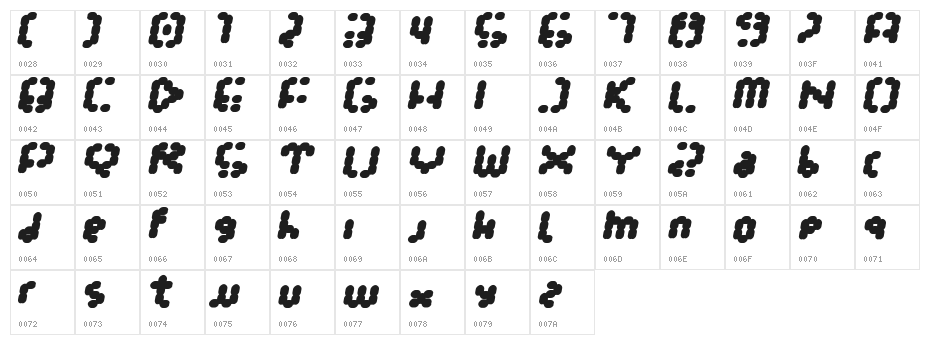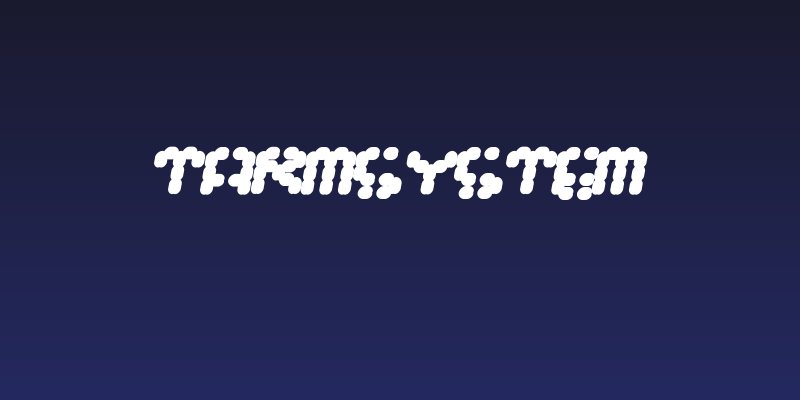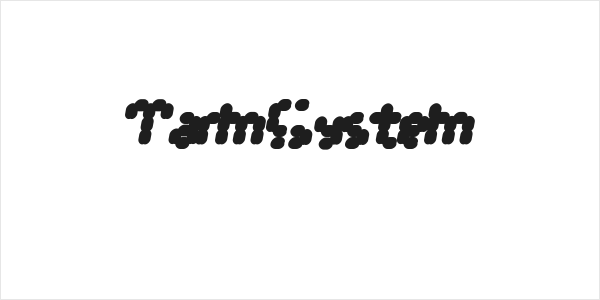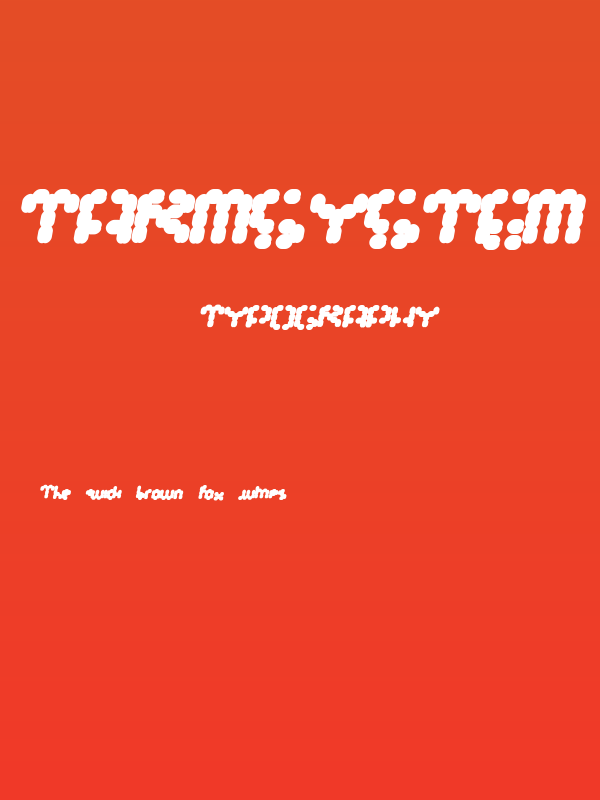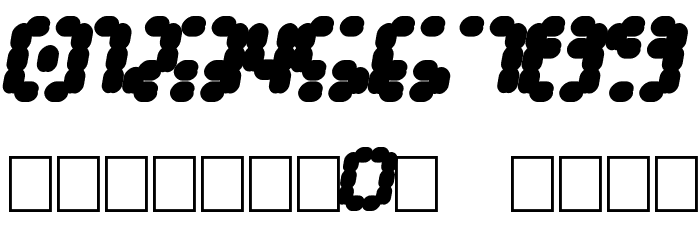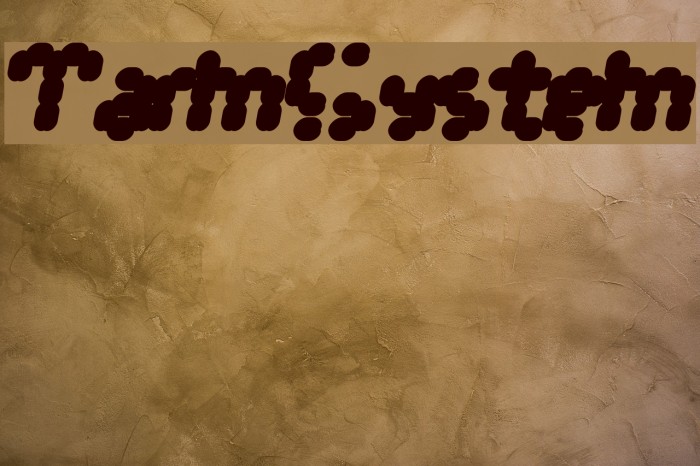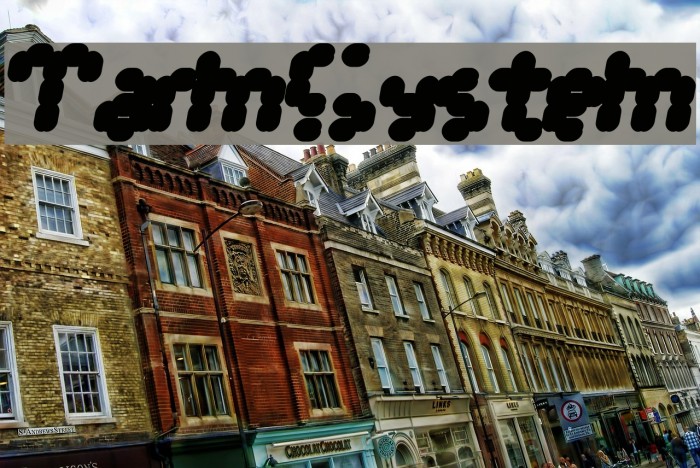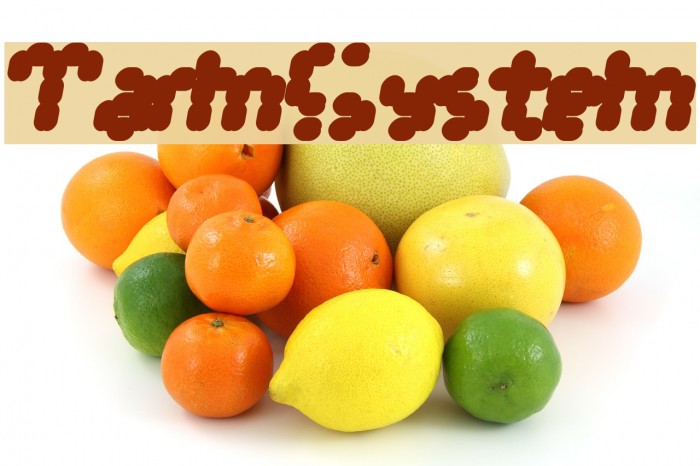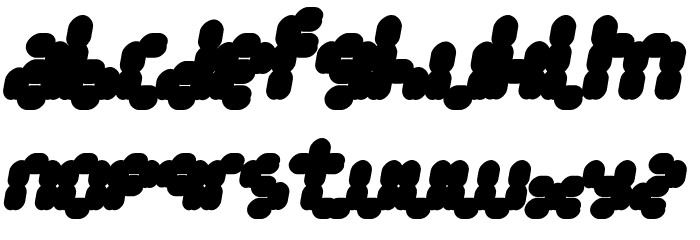
TarmSystem Font
TarmSystem Description
This font features a unique, playful design composed of interconnected circular dots forming each character. The letters have a bubbly, almost whimsical appearance, making them stand out with a distinct visual texture. The uppercase and lowercase letters maintain a consistent style, with rounded edges and a uniform dot size, creating a cohesive look. Numbers and special characters follow the same dotted pattern, ensuring uniformity across all glyphs. This font's design is eye-catching and unconventional, making it suitable for creative and informal projects.